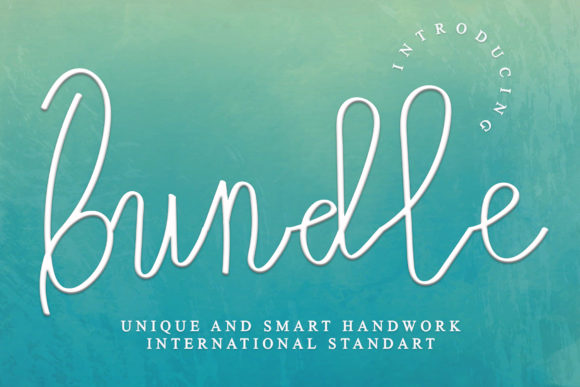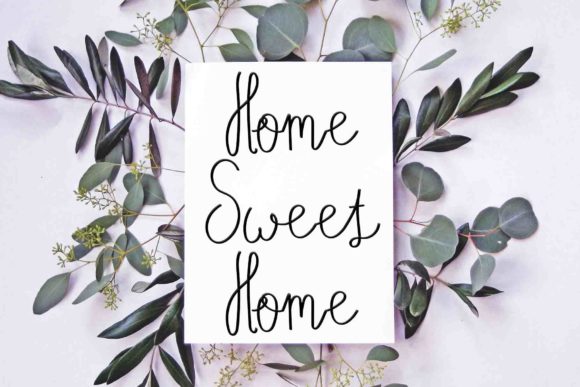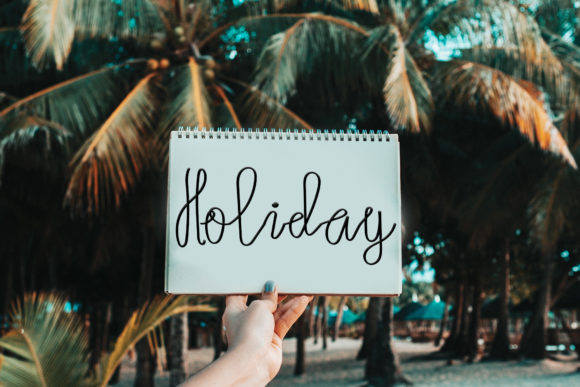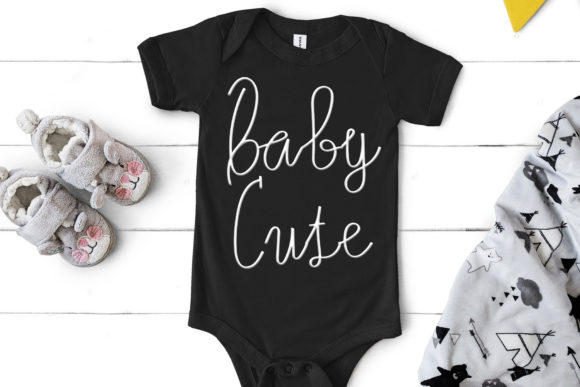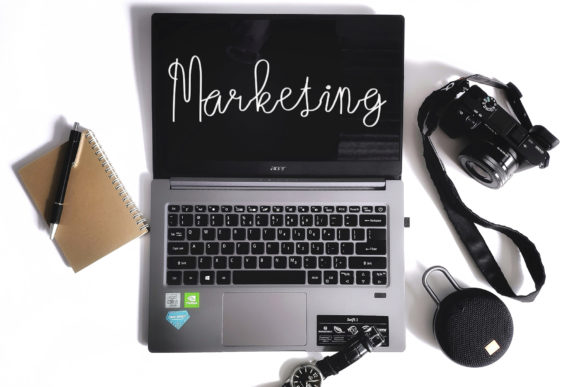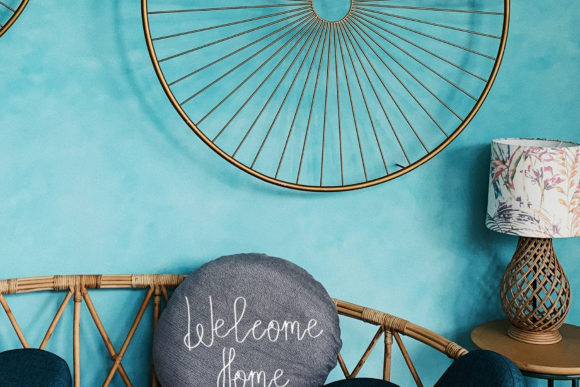
Bundle Font
About Bundle Font
Bundle is a beautiful and refined script font. It has a classy, elegant and modern look that can be used for logos, branding, invitations, stationery, wedding designs, social media posts, and much more!